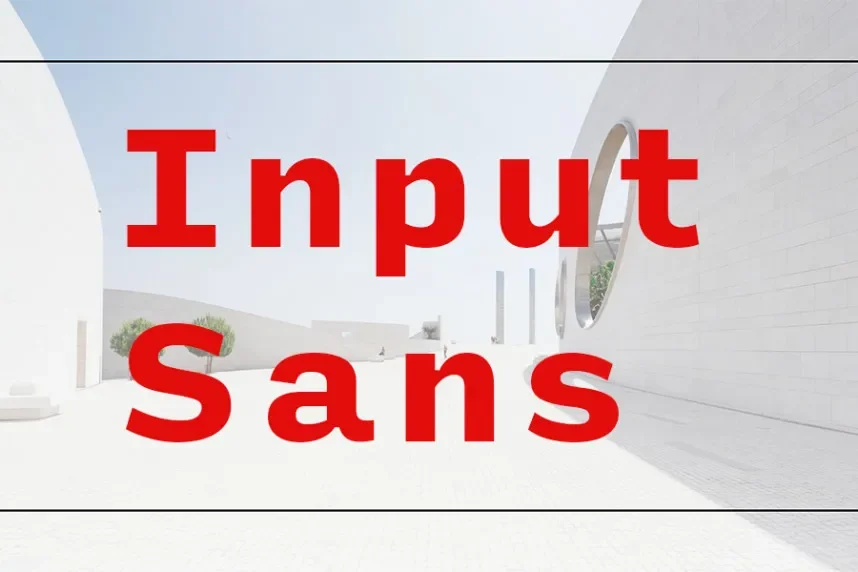
Input Sans Font Family
Designed by David Jonathan Ross
Input Sans Font Family is a sans-serif type system designed to improve clarity in technical and interface-driven content. Designers and developers often face readability issues when working with code editors, dashboards, and UI layouts that rely on precise character distinction.
Input Sans belongs to the sans-serif / monospaced-inspired font family category. Developed by David Jonathan Ross, the typeface offers multiple widths, weights, and styles. Its letterforms feature open counters, consistent stroke widths, and clear differentiation between similar characters like “I,” “l,” and “1.” These traits support long reading sessions and reduce visual confusion.
The font family is widely used in UI design, software interfaces, code editors, data dashboards, technical documentation, and web applications. It works well for both headings and body text in structured layouts. Designers often pair Input Sans with a serif font for editorial contrast or use it alone for clean, functional systems.